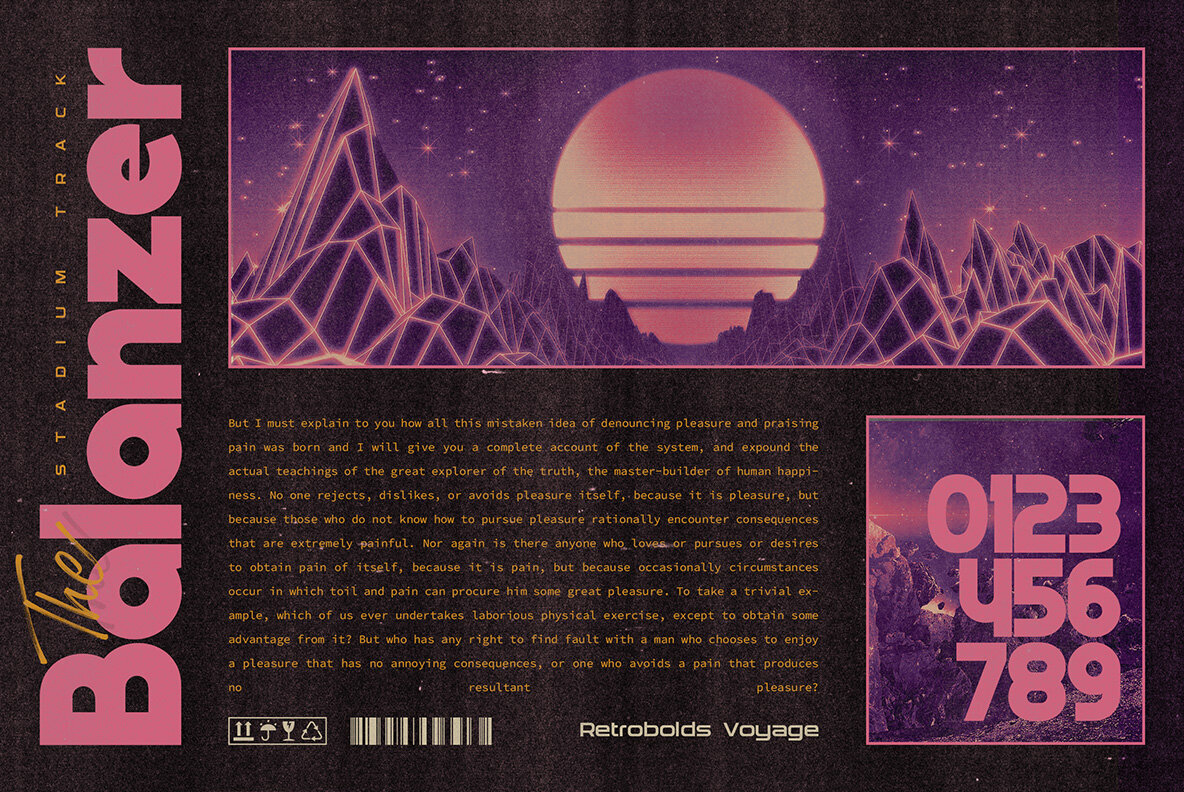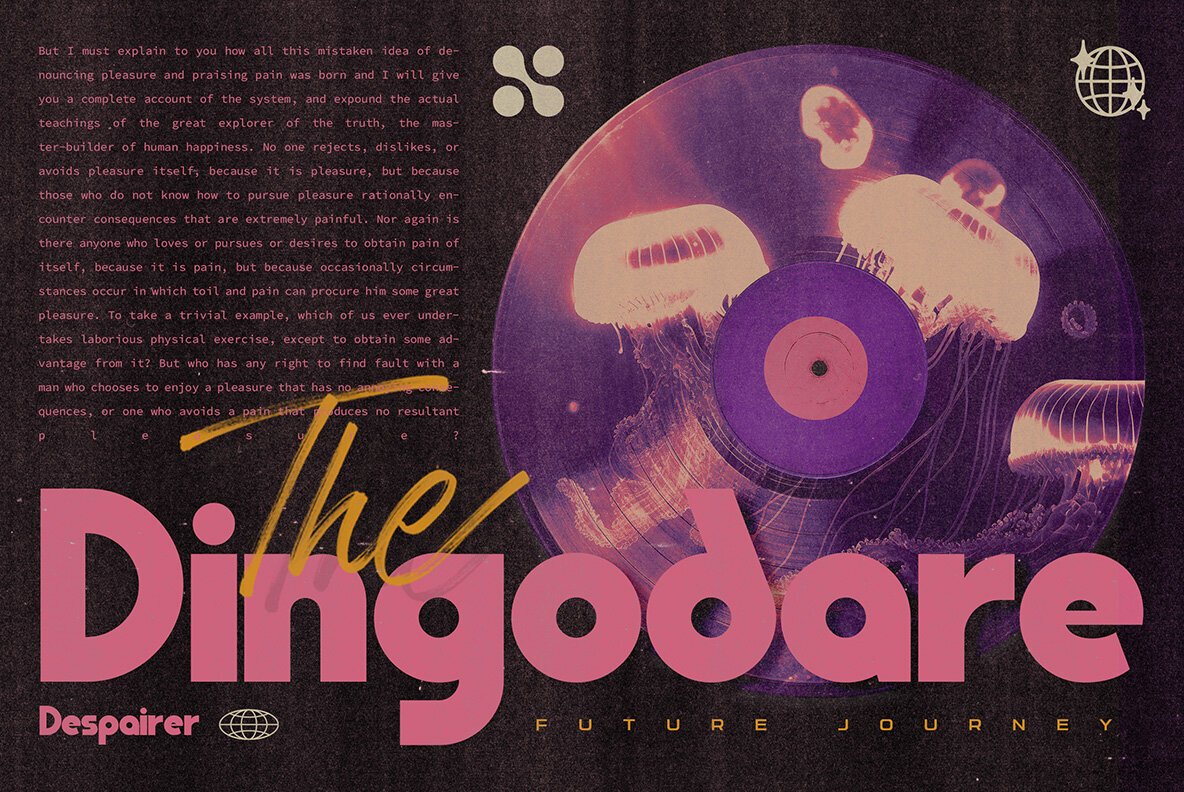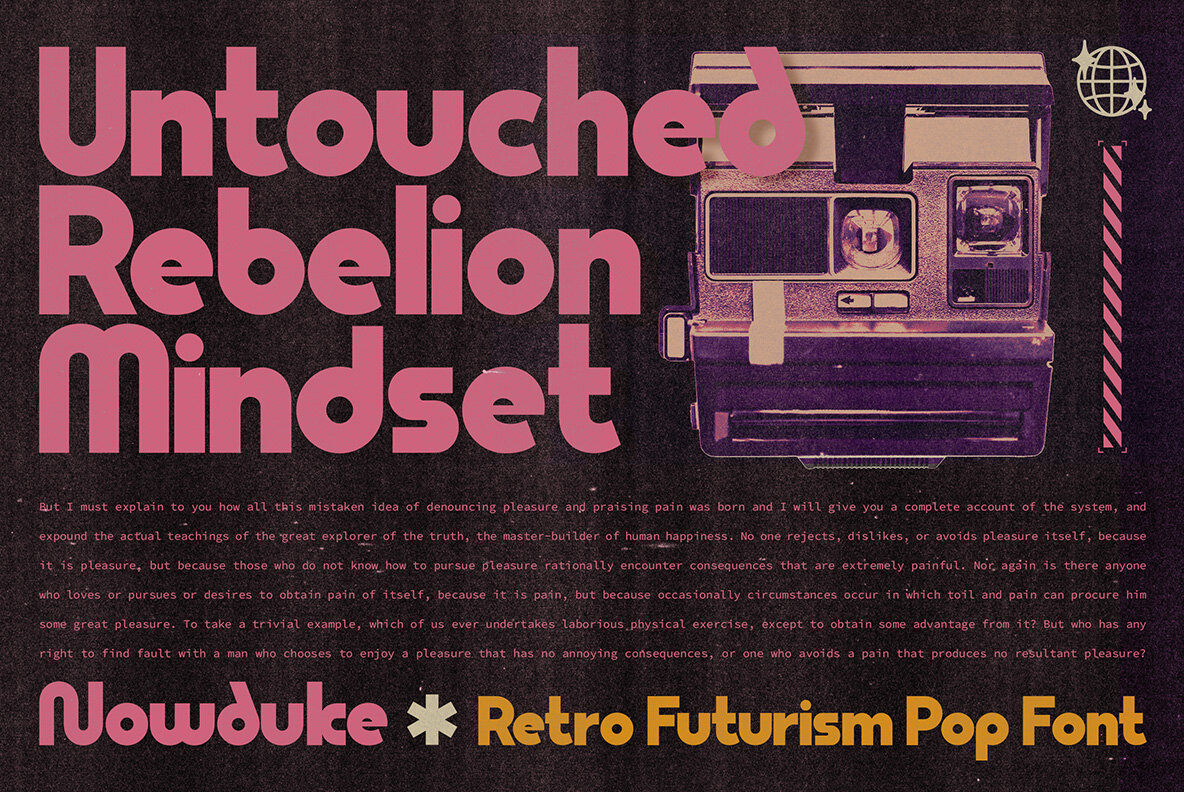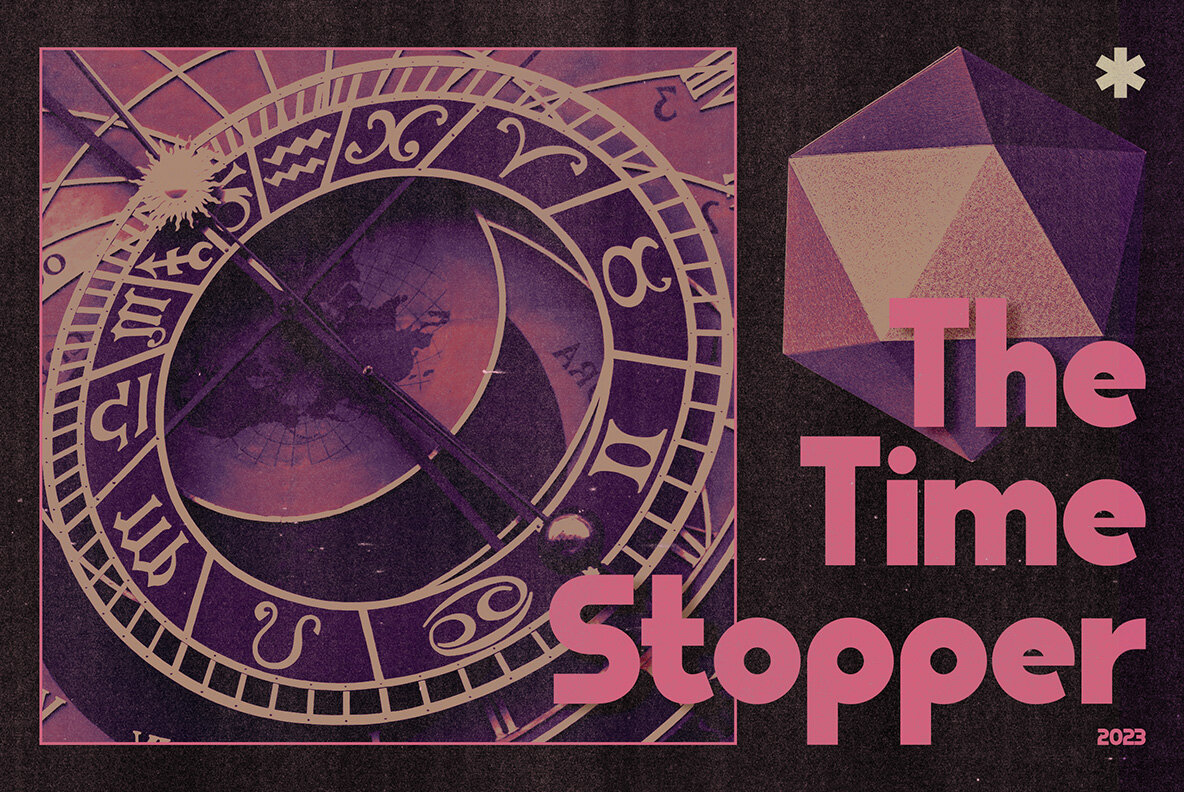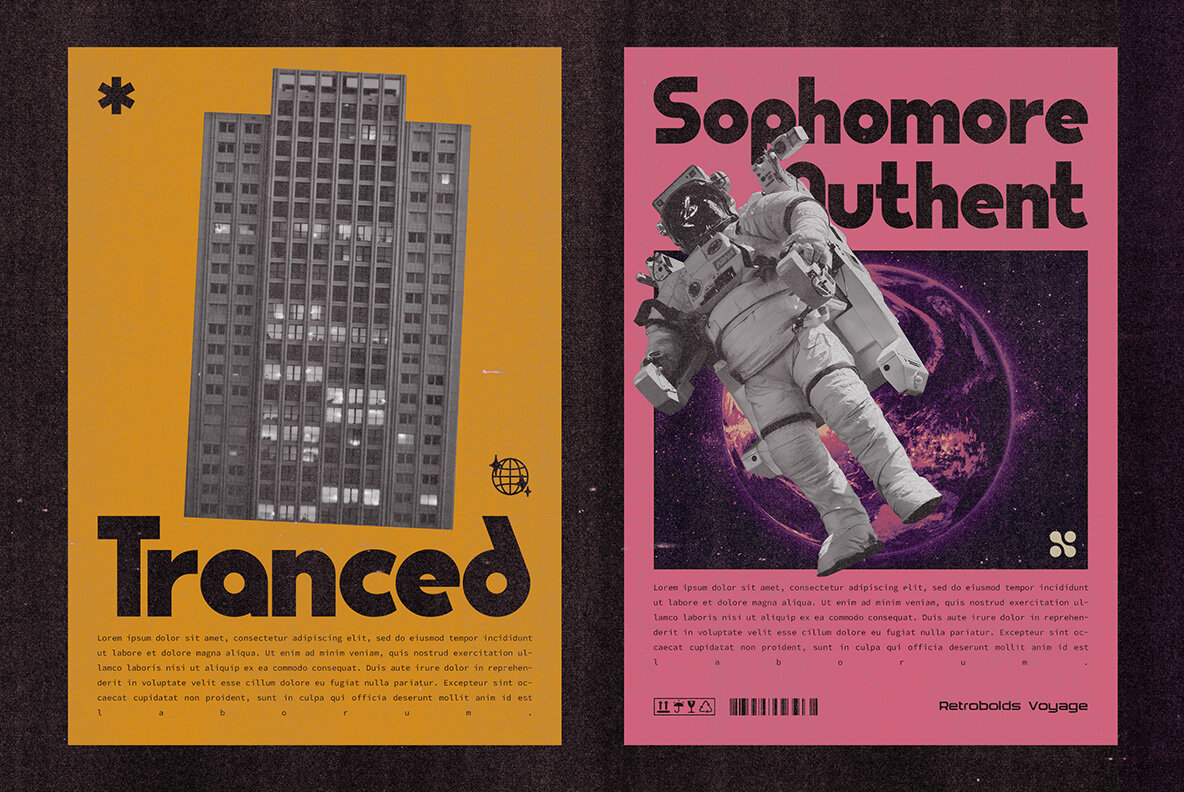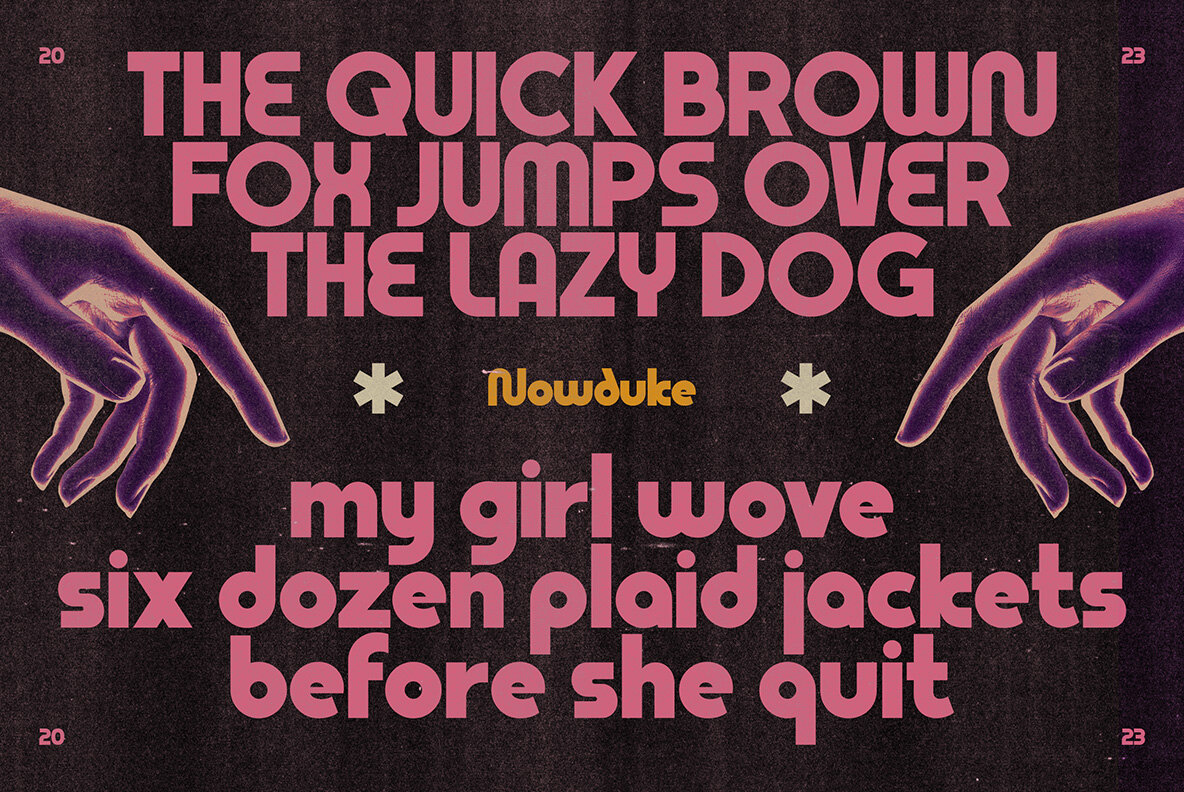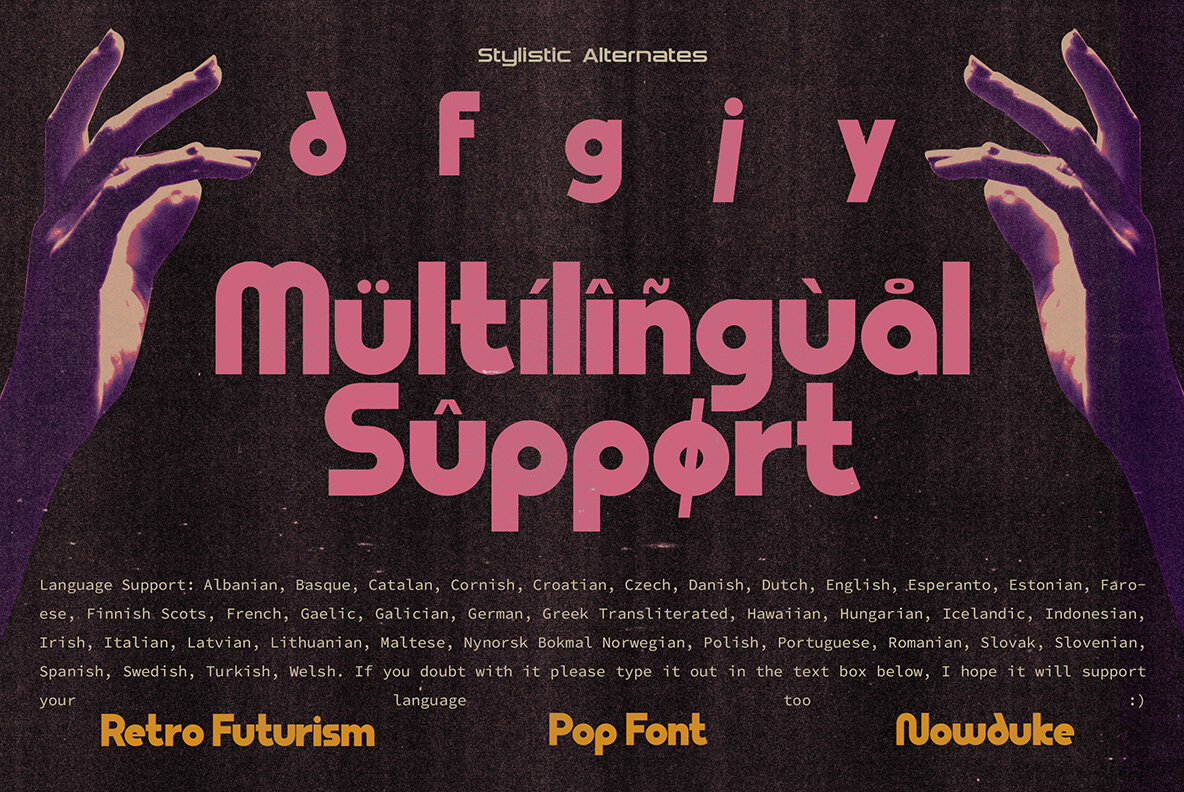
Nowduke 1
Step back in time with Nowduke - the bold vintage font that's taking the design world by storm! Inspired by the Retro-Futurism trend that's sweeping the digital industry, this font captures the essence of a bygone era while still feeling fresh and relevant today.
With its striking design and undeniable impact, Nowduke is the perfect font to make your message stand out from the crowd. Whether you're designing a retro-inspired logo, a throwback poster, or anything in between, Nowduke is the font that will take your work to the next level.
So why settle for boring, modern fonts when you can channel the spirit of the past with Nowduke? Don't miss out on this opportunity to make a statement and bring a touch of vintage flair to your designs.